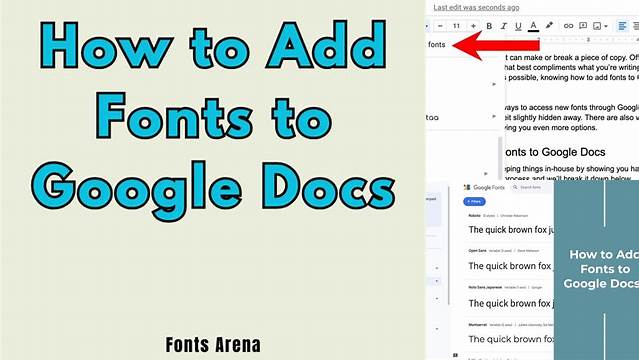
Install Fonts In Google Docs: A Step-by-Step Guide
Hey guys! Ever felt like your Google Docs are looking a little...blah? Want to spice them up with some awesome new fonts? Well, you've come to the right place! Installing fonts in Google Docs is super easy, and I'm gonna walk you through it step by step. Let's ditch those boring default fonts and make your documents pop!
1. Understanding Font Availability in Google Docs
Okay, so first things first, it's important to understand how fonts work in Google Docs. Unlike your desktop applications, Google Docs doesn't directly use the fonts installed on your computer. Instead, it relies on a library of fonts provided by Google. This means you can access your favorite fonts from anywhere, on any device, as long as you have an internet connection. Pretty cool, right? But it also means that you need to add fonts to your Google Docs account specifically. Think of it like having a separate font collection just for your online documents. So, before we dive into installing fonts, let's clarify that we are actually adding them to your Google Docs font library. This distinction is key, guys, because it affects how you find and use those fonts. The available fonts are categorized and easily searchable within the Google Docs interface.
2. Accessing the Font Menu in Google Docs
Alright, let's get practical! To start adding fonts, you need to access the font menu in Google Docs. Open up your document (or create a new one – totally up to you!). Then, look for the font selection box in the toolbar. It usually displays the name of the current font being used (like Arial or Times New Roman). Click on that box, and a dropdown menu will appear. At the very top of this dropdown, you'll see the currently available fonts in your document. But, guys, we're not stopping there! Scroll all the way down to the bottom of the menu, and you'll find the option that says "More fonts." Click on that, and bam! You're in the font customization zone! This "More fonts" option is your gateway to expanding your font horizons within Google Docs. Don't be shy; click it! It’s where the magic happens, and where you'll find a huge selection of fonts just waiting to be added to your collection. This is where you can browse, search, and select the perfect fonts to elevate your Google Docs game. So, get clicking and let's explore the possibilities!
3. Browsing and Searching for New Fonts
Okay, so you're now in the "More fonts" window. This is where the fun begins! You can browse through the massive selection of fonts using the scroll bar, or you can use the search bar to find something specific. If you have a particular font in mind, just type its name into the search bar, and Google Docs will filter the results. If you're just looking for inspiration, check out the different categories. Google Docs organizes fonts into styles like Serif, Sans Serif, Display, and Handwriting. Experiment with these categories! Click through them to get a feel for the different styles and find fonts that match the tone and purpose of your document. Another helpful feature is the ability to sort fonts by popularity, trending, or alphabetically. This can help you discover popular fonts or find something unique that you might not have otherwise considered. Remember, guys, the goal is to find fonts that enhance your document and make it visually appealing. Don't be afraid to try out different fonts and see what works best for you. The more you explore, the better you'll become at choosing the perfect font for every occasion.
4. Adding Fonts to Your Google Docs Font List
Found some fonts you love? Awesome! Now it's time to add them to your Google Docs font list. In the "More fonts" window, simply click on the fonts you want to add. When you click on a font, it will be added to your "My fonts" list, which is displayed on the right side of the window. You can add as many fonts as you like, so feel free to go crazy! But remember, having too many fonts can make it difficult to find the ones you need, so try to be selective. Once you've added all the fonts you want, click the "OK" button. The "More fonts" window will close, and your newly added fonts will now be available in the font dropdown menu in your Google Docs document. You might need to scroll down a bit to find them, as they're usually added to the bottom of the list. But don't worry, they're there! Now you can start using your new fonts in your document and make it look even more amazing. It’s that easy, guys! You’ve just expanded your font library and unlocked a whole new level of creative possibilities within Google Docs.
5. Using Newly Installed Fonts in Your Document
Alright, you've added your new fonts – high five! Now, let's actually use them. Select the text you want to change, then click on the font dropdown menu in the toolbar. Scroll through the list until you find your newly added font, and click on it. Voila! Your selected text will now be displayed in the new font. Experiment with different fonts for headings, body text, and even captions to create a visually appealing document. Remember, consistency is key. Try to use a limited number of fonts (usually two or three) to maintain a professional and cohesive look. Also, consider the readability of your chosen fonts. While some fonts may look cool and stylish, they may not be easy to read, especially for large blocks of text. Choose fonts that are both visually appealing and easy on the eyes. And don't be afraid to adjust the font size and color to further enhance the readability and overall look of your document. With a little experimentation, you can create documents that are both informative and visually stunning, thanks to your awesome new font collection! You're basically a font master now, guys!
6. Removing Fonts from Your Google Docs Font List
Okay, so what if you added a font and decided you don't like it? No problem! You can easily remove fonts from your Google Docs font list. Go back to the "More fonts" window (remember, it's at the bottom of the font dropdown menu). In the "My fonts" list on the right side of the window, you'll see all the fonts you've added. To remove a font, simply click on it. It will be removed from your "My fonts" list and will no longer appear in the font dropdown menu in your Google Docs document. You can remove as many fonts as you want, so feel free to declutter your font list and get rid of any fonts you're not using. Keeping your font list clean and organized will make it easier to find the fonts you need and prevent you from getting overwhelmed by too many options. So, don't be afraid to remove fonts you don't like. It's all part of the process of finding the perfect font collection for your needs. And remember, you can always add them back later if you change your mind! Font management is key to a smooth and efficient Google Docs experience, guys.
7. Troubleshooting Font Display Issues
Sometimes, you might encounter issues with fonts not displaying correctly in Google Docs. This can be frustrating, but don't worry, there are a few things you can try to fix it. First, make sure you have a stable internet connection. Google Docs relies on the internet to load fonts, so if your connection is weak or unstable, the fonts may not display properly. Second, try clearing your browser's cache and cookies. This can sometimes resolve issues with fonts not loading correctly. Third, try using a different browser. Sometimes, certain browsers may have compatibility issues with Google Docs or certain fonts. If you've tried all of these things and the fonts are still not displaying correctly, there may be a problem with the font itself. Try using a different font or contacting Google Docs support for assistance. And remember, guys, technology can be finicky sometimes. Don't get discouraged if you encounter problems. Just keep troubleshooting until you find a solution. With a little patience and persistence, you'll be able to get your fonts displaying correctly and create beautiful, professional-looking documents.
8. Font Pairing Tips for Google Docs
Choosing the right fonts is important, but pairing them effectively is just as crucial for creating visually appealing documents. A good font pairing can enhance readability, establish a clear visual hierarchy, and create a cohesive design. Here are a few tips for pairing fonts in Google Docs: Contrast is key: Choose fonts that are visually distinct from each other. For example, pair a serif font (like Times New Roman) with a sans-serif font (like Arial). This will create contrast and make your document more visually interesting. Consider the mood: Different fonts evoke different emotions. Choose fonts that match the tone and purpose of your document. For example, a formal document might call for classic, elegant fonts, while a more casual document might benefit from playful, modern fonts. Limit the number of fonts: Using too many fonts can make your document look cluttered and unprofessional. Stick to two or three fonts at most. Use one font for headings and another for body text. You can also use a third font for captions or other small text elements. Test and experiment: The best way to find good font pairings is to experiment. Try out different combinations and see what works best for you. Don't be afraid to break the rules and create your own unique style. With a little experimentation, you can master the art of font pairing and create documents that are both visually appealing and easy to read. You'll be a design pro in no time, guys!
9. Exploring Google Fonts API
The Google Fonts API is a powerful tool that allows you to access a vast library of free, open-source fonts for use in your web projects. While it's primarily used for websites and web applications, it can also be helpful for finding and previewing fonts for your Google Docs documents. The API provides a simple way to browse, search, and download fonts, as well as generate the code needed to embed them in your website. You can use the Google Fonts website to explore the available fonts and find the perfect ones for your needs. The website also provides information about each font, including its designer, license, and usage statistics. While you can't directly use the Google Fonts API to install fonts in Google Docs, you can use it to find and preview fonts, and then search for those fonts in the Google Docs "More fonts" window. This can be a helpful way to discover new and interesting fonts that you might not have otherwise considered. So, if you're looking for a wider selection of fonts for your Google Docs documents, be sure to check out the Google Fonts API. It's a great resource for finding and previewing fonts, and it can help you take your documents to the next level. It's like a secret weapon for font enthusiasts, guys!
10. Using Custom Fonts with Google Docs Add-ons
While Google Docs provides a decent selection of fonts, you might want to use custom fonts that aren't available in the default font library. One way to do this is to use Google Docs add-ons. There are several add-ons available that allow you to upload and use custom fonts in your documents. These add-ons typically work by embedding the custom fonts in your document, so that they display correctly even if the recipient doesn't have the fonts installed on their computer. However, it's important to note that using custom fonts with add-ons can sometimes cause compatibility issues, especially if the recipient is using an older version of Google Docs or a different word processing program. It's also important to make sure that you have the legal rights to use the custom fonts. Before using a custom font add-on, be sure to read the reviews and understand the potential risks and limitations. And always test your documents thoroughly to ensure that the fonts display correctly on different devices and browsers. While using custom fonts can add a unique touch to your documents, it's important to weigh the benefits against the potential drawbacks. But if you're willing to take the risk, it can be a great way to make your documents stand out from the crowd. Just be careful out there, font adventurers!
11. Font Size and Spacing Adjustments
Okay, you've got your fonts installed, but the job's not quite done! Font size and spacing are crucial for readability. Don't just slap a fancy font on there and call it a day. Think about your audience and the purpose of your document. For body text, aim for a font size that's easy on the eyes – around 11 or 12 points is a good starting point. Headings should be larger, of course, to create a clear visual hierarchy. But don't go overboard! A heading that's too big can be just as distracting as one that's too small. Spacing, both between lines and between letters, also plays a big role. Too little spacing can make your text look cramped and difficult to read, while too much spacing can make it look disjointed. Experiment with different settings until you find a balance that works for your chosen fonts and the overall design of your document. Google Docs has some handy tools for adjusting font size and spacing, so take advantage of them! You can find these options in the toolbar, under the "Format" menu. Remember, guys, readability is king! A beautiful font is useless if nobody can read it.
12. The Importance of Font Licensing
This is a super important, but often overlooked, aspect of using fonts! Not all fonts are created equal, and not all fonts are free to use for any purpose. Many fonts are protected by copyright, and you need to have a license to use them legally. This is especially important if you're using fonts for commercial purposes, such as in marketing materials or products that you sell. Using a font without a proper license can result in legal trouble, so it's always best to err on the side of caution. Fortunately, there are many free and open-source fonts available that you can use without worrying about licensing issues. Google Fonts, for example, offers a vast library of fonts that are licensed under the Open Font License (OFL), which allows you to use them for almost any purpose, including commercial use. However, it's always a good idea to double-check the license before using any font, just to be sure. You can usually find licensing information on the font designer's website or in the font's documentation. Remember, guys, respect the creators and their work! Font designers put a lot of effort into creating these typefaces, so it's important to use them responsibly and legally. It's the right thing to do, and it'll keep you out of trouble!
13. Using Different Font Styles (Bold, Italics, Underline)
Okay, you've chosen your fonts, you've adjusted the size and spacing, and you're ready to roll, right? Well, almost! Don't forget about font styles like bold, italics, and underline. These can be powerful tools for emphasizing important words, phrases, or sections of text. But, like any tool, they should be used sparingly and with purpose. Overusing bold, italics, or underline can make your document look cluttered and unprofessional. Use bold to highlight key words or phrases that you want to stand out. Use italics to emphasize words or phrases that are being quoted or that represent titles of books, movies, or other works. Avoid using underline altogether, as it's generally considered outdated and can make your text look less professional. Instead, use bold or italics to achieve the same effect. Also, be consistent with your use of font styles throughout your document. If you use bold to highlight key words in one section, use bold to highlight key words in all sections. This will create a sense of visual consistency and make your document easier to read. Remember, guys, font styles are like spices – a little can go a long way, but too much can ruin the dish!
14. Choosing Fonts for Different Document Types
Different document types call for different font choices. A resume, for example, should use clean, professional fonts that are easy to read, such as Arial, Times New Roman, or Calibri. A creative writing piece, on the other hand, might benefit from more decorative or unique fonts that reflect the tone and style of the writing. A business report should use fonts that are clear and concise, such as Helvetica or Arial. A presentation should use fonts that are large and easy to read from a distance, such as Impact or Arial Black. When choosing fonts for a particular document type, consider the purpose of the document, the audience, and the overall tone and style. Also, be sure to choose fonts that are appropriate for the medium in which the document will be viewed. For example, fonts that look great on a computer screen may not look as good when printed. Experiment with different fonts and see what works best for you. And don't be afraid to ask for feedback from others. Getting a second opinion can help you choose fonts that are both visually appealing and appropriate for the document type. Remember, guys, the right font can make all the difference!
15. Creating Font Templates in Google Docs
Want to save time and effort when creating documents in Google Docs? Consider creating font templates! A font template is a pre-designed document that contains all of your preferred font settings, such as font type, size, spacing, and styles. You can create different font templates for different document types, such as resumes, reports, or presentations. To create a font template, simply create a new Google Docs document and format it with your desired font settings. Then, save the document as a template. To use the template, simply open it and start writing. All of your font settings will be automatically applied to the new document. You can also share your font templates with others, allowing them to easily create documents that match your brand or style. Creating font templates is a great way to streamline your workflow and ensure consistency across all of your documents. It's also a great way to experiment with different font combinations and find the perfect font settings for your needs. Remember, guys, templates are your friends!
16. Google Docs Mobile Font Options
Using Google Docs on your phone or tablet? No problem! You can still access and use all of your favorite fonts, even on the go. The Google Docs mobile app offers the same font selection options as the desktop version, allowing you to choose from a wide variety of fonts to format your documents. To change the font on your mobile device, simply open the document you want to edit and tap on the "A" icon in the toolbar. This will open the formatting menu, where you can select a different font, adjust the font size, and apply font styles like bold, italics, and underline. You can also add new fonts to your Google Docs font list using the "More fonts" option, just like on the desktop version. The Google Docs mobile app also supports custom fonts, allowing you to use fonts that aren't available in the default font library. However, keep in mind that using custom fonts on mobile devices can sometimes cause compatibility issues, so it's always a good idea to test your documents thoroughly to ensure that the fonts display correctly. Remember, guys, you can be productive and stylish, even on the go!
17. Font Psychology: How Fonts Affect Perception
Did you know that fonts can actually affect how people perceive your message? It's true! Different fonts evoke different emotions and associations, and choosing the right font can help you create a more persuasive and impactful document. For example, serif fonts like Times New Roman are often associated with tradition, authority, and professionalism. Sans-serif fonts like Arial are often associated with modernity, simplicity, and clarity. Script fonts are often associated with elegance, creativity, and femininity. Decorative fonts are often associated with playfulness, fun, and informality. When choosing fonts for your documents, consider the message you're trying to convey and the emotions you want to evoke. Also, consider your target audience. Different audiences may have different preferences for different fonts. For example, a younger audience may prefer more modern and edgy fonts, while an older audience may prefer more classic and traditional fonts. Experiment with different fonts and see how they affect the way people perceive your message. And don't be afraid to ask for feedback from others. Getting a second opinion can help you choose fonts that are both visually appealing and effective at conveying your message. Remember, guys, fonts are powerful tools!
18. Font Weight and Its Impact on Readability
Font weight refers to the thickness of the characters in a font. It's often expressed using terms like "light," "regular," "bold," and "black." Font weight can have a significant impact on readability, especially for large blocks of text. Lighter font weights can be easier on the eyes for longer reading sessions, while heavier font weights can be more effective for headings and emphasis. When choosing font weights for your documents, consider the length of the text, the size of the font, and the overall design of the document. Also, be consistent with your use of font weights throughout your document. Using too many different font weights can make your document look cluttered and unprofessional. Instead, stick to a limited number of font weights that complement each other and create a sense of visual hierarchy. Experiment with different font weights and see what works best for you. And don't be afraid to ask for feedback from others. Getting a second opinion can help you choose font weights that are both visually appealing and easy to read. Remember, guys, font weight is an important element of typography!
19. Kerning and Tracking: Fine-Tuning Font Appearance
Kerning and tracking are two typographic techniques that can be used to fine-tune the appearance of fonts. Kerning refers to the adjustment of the space between individual letters, while tracking refers to the adjustment of the overall space between all letters in a word or line of text. Adjusting kerning and tracking can improve readability and create a more visually appealing document. For example, reducing the space between letters that are too far apart can make the text look more balanced and cohesive. Increasing the space between letters that are too close together can make the text easier to read. Google Docs doesn't offer built-in kerning and tracking tools, but you can achieve similar effects by using the "Custom spacing" option in the "Line spacing" menu. This allows you to adjust the overall spacing between lines of text, which can indirectly affect the spacing between letters. Experiment with different spacing settings and see what works best for your chosen fonts. And don't be afraid to ask for feedback from others. Getting a second opinion can help you fine-tune the appearance of your fonts and create a more polished and professional-looking document. Remember, guys, even small adjustments can make a big difference!
20. The Role of Typography in Branding
Typography plays a crucial role in branding. The fonts you use in your marketing materials, website, and other communications can significantly impact how people perceive your brand. Choosing the right fonts can help you create a consistent and recognizable brand identity. For example, if your brand is associated with tradition and authority, you might want to use serif fonts like Times New Roman or Garamond. If your brand is associated with modernity and innovation, you might want to use sans-serif fonts like Helvetica or Arial. If your brand is associated with creativity and playfulness, you might want to use script or decorative fonts. When choosing fonts for your brand, consider your target audience, your brand values, and the overall message you want to convey. Also, be consistent with your use of fonts across all of your brand materials. Using too many different fonts can make your brand look inconsistent and unprofessional. Instead, stick to a limited number of fonts that complement each other and create a cohesive brand identity. Remember, guys, typography is an essential element of branding!
21. Font Choice and Accessibility Considerations
When choosing fonts, it's important to consider accessibility. Some fonts are easier to read than others, especially for people with visual impairments or reading disabilities. Choosing accessible fonts can help ensure that your documents are readable by everyone. Here are a few tips for choosing accessible fonts: * Use fonts with clear and simple letterforms. Avoid fonts with overly decorative or stylized letterforms, as these can be difficult to read. * Use fonts with a large x-height. The x-height is the height of the lowercase letters in a font. Fonts with a large x-height tend to be more readable than fonts with a small x-height. * Use fonts with adequate spacing between letters. This can help prevent letters from running together and making the text difficult to read. * Avoid using all caps. All caps can be difficult to read, especially for long blocks of text. * Provide alternative text for images. If you're using images in your document, be sure to provide alternative text that describes the image. This will allow people who are using screen readers to understand the content of the image. By following these tips, you can choose fonts that are both visually appealing and accessible to everyone. Remember, guys, accessibility is important!
22. Font Trends: Staying Current with Typeface Design
Like fashion, font design is constantly evolving. Staying current with font trends can help you keep your documents looking fresh and modern. However, it's important to note that not all font trends are created equal. Some trends are fleeting and may quickly become dated, while others have more staying power. When considering font trends, it's important to choose trends that are appropriate for your brand and your audience. Also, be sure to use trends in moderation. Overusing trendy fonts can make your documents look cluttered and unprofessional. Here are a few font trends to watch out for: * Geometric sans-serif fonts: These fonts are characterized by their clean lines and minimalist design. * Handwritten fonts: These fonts are designed to mimic the look of handwriting. * Variable fonts: These fonts allow you to adjust various aspects of the font, such as weight, width, and slant. By staying current with font trends, you can keep your documents looking fresh and modern. However, it's important to choose trends that are appropriate for your brand and your audience. Remember, guys, trends are just guidelines!
23. Combining Fonts with Images and Graphics
When creating documents with images and graphics, it's important to choose fonts that complement the visual elements. The fonts should work together with the images and graphics to create a cohesive and visually appealing design. Here are a few tips for combining fonts with images and graphics: * Choose fonts that match the tone and style of the images and graphics. For example, if you're using bold and colorful images, you might want to choose fonts that are equally bold and colorful. * Use fonts to create contrast with the images and graphics. For example, if you're using simple and understated images, you might want to choose fonts that are more decorative or stylized. * Use fonts to create a visual hierarchy. Use different font sizes, weights, and styles to highlight important information and guide the reader's eye. By following these tips, you can create documents that are both visually appealing and effective at communicating your message. Remember, guys, fonts and visuals should work together!
24. Font Management Strategies for Google Docs
As you add more and more fonts to your Google Docs font list, it can become difficult to manage them all. Here are a few font management strategies to help you keep your font list organized: * Remove fonts that you don't use. This will make it easier to find the fonts that you do use. * Create font templates for different document types. This will help you quickly apply your favorite font settings to new documents. * Use font management tools. There are several font management tools available that can help you organize and manage your fonts. By following these strategies, you can keep your Google Docs font list organized and make it easier to find the fonts you need. Remember, guys, organization is key!
25. Optimizing Font Choice for Online vs. Print
Fonts can appear differently online versus in print. What looks crisp and clear on a screen might appear blurry or distorted when printed, and vice versa. That's why it's important to optimize your font choices depending on the intended medium. For online viewing, sans-serif fonts like Arial, Helvetica, and Verdana are generally preferred. They tend to be more readable on screens due to their clean lines and lack of serifs (the small strokes at the ends of letters). For print, serif fonts like Times New Roman, Garamond, and Georgia are often a better choice. The serifs help to guide the eye across the page, making the text easier to read in long blocks. However, these are just general guidelines. The best font choice will depend on the specific document, the target audience, and the overall design. It's always a good idea to test your font choices in both online and print formats to ensure that they look their best. Remember, guys, consider the medium!
26. Legal Aspects of Using Downloaded Fonts
We touched on font licensing earlier, but it's worth reiterating the legal aspects of using downloaded fonts. Just because you found a font online doesn't mean you're free to use it however you want. Most fonts are protected by copyright, and you need to have a license to use them legally. There are different types of font licenses, each with its own terms and conditions. Some licenses are free for personal use but require a fee for commercial use. Other licenses are more restrictive and may prohibit certain types of use, such as embedding the font in a website or app. It's crucial to read the license agreement carefully before using any downloaded font. If you're unsure about the terms of the license, it's best to err on the side of caution and contact the font designer or foundry for clarification. Using a font without a proper license can result in legal trouble, so it's always better to be safe than sorry. Remember, guys, respect intellectual property!
27. Font Rendering Differences Across Browsers
Ever noticed that fonts can look slightly different in different web browsers? That's because each browser uses its own font rendering engine, which can affect how fonts are displayed. Some browsers may render fonts more sharply than others, while others may apply different antialiasing techniques. These differences can be subtle, but they can still impact the overall appearance of your documents. Unfortunately, there's not much you can do to control how fonts are rendered in different browsers. However, you can try to choose fonts that are known to render well across a variety of browsers. Sans-serif fonts like Arial and Helvetica tend to be fairly consistent across different browsers, while serif fonts can sometimes vary more significantly. It's also a good idea to test your documents in different browsers to see how the fonts look. If you notice any major discrepancies, you may need to adjust your font choices or use CSS to override the browser's default font rendering settings. Remember, guys, browsers are individuals!
28. Using Emojis and Special Characters with Fonts
Emojis and special characters can add a fun and expressive touch to your documents. However, it's important to choose fonts that support these characters. Not all fonts include emojis or special characters, and some fonts may display them differently than others. If you're planning to use emojis or special characters in your documents, be sure to choose a font that supports them. Sans-serif fonts like Arial Unicode MS and Segoe UI Emoji are generally good choices, as they include a wide range of emojis and special characters. You can also use character map tools to find and insert special characters into your documents. These tools allow you to browse through all of the characters available in a particular font and select the ones you want to use. Remember, guys, emojis are your friends!
29. Advanced Typography Techniques in Google Docs
While Google Docs isn't a professional-grade design tool, there are still some advanced typography techniques you can use to enhance your documents. One technique is to use different font sizes and weights to create a visual hierarchy. For example, you can use a larger and bolder font for headings and subheadings to make them stand out from the body text. Another technique is to use different font styles, such as italics and small caps, to add emphasis and visual interest. You can also experiment with different line heights and letter spacing to improve readability and create a more visually appealing layout. While Google Docs doesn't offer advanced kerning or tracking controls, you can still adjust the overall spacing between lines and letters to fine-tune the appearance of your text. Remember, guys, even small details can make a big difference!
30. Future of Font Technology and Google Docs
The future of font technology is looking bright, with new innovations and advancements constantly emerging. One exciting development is variable fonts, which allow you to adjust various aspects of a font, such as weight, width, and slant, using a single font file. This can significantly reduce file sizes and improve performance, especially on websites and web applications. Another trend is the increasing use of artificial intelligence (AI) in font design. AI can be used to automate certain aspects of the design process, such as generating different font weights or creating variations of existing fonts. As Google Docs continues to evolve, we can expect to see these new font technologies integrated into the platform. This will give users even more control over their typography and allow them to create more visually stunning and engaging documents. Remember, guys, the future is now! So, get out there and experiment with new fonts and techniques to take your Google Docs skills to the next level.